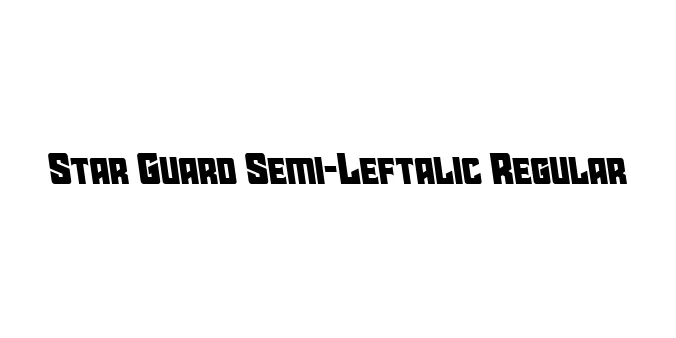
Star Guard Semi-Leftalic Regular
Designed by Dan Zadorozny
Star Guard Semi-Leftalic Regular is a distinctive member of the expansive Star Guard family, created by the prolific typeface designer Dan Zadorozny of Iconian Fonts. This font is characterized by its sharp, angular forms and a unique reverse slant that gives it an aggressive, kinetic energy. It belongs to the techno-futurist genre, drawing inspiration from retro-scientific aesthetics and industrial mechanical precision to create a look that is both modern and nostalgic for the space-age era.
The Semi-Leftalic variation provides a subtle departure from standard italics, offering a dynamic visual tension that is rarely seen in mainstream typography. Its wide-stance characters and stencil-like cutouts make it highly legible in large formats, making it a staple for graphic designers working within the gaming, aerospace, and comic book industries who require a sense of speed and high-tech sophistication.
Star Guard Semi-Leftalic Regular Best Uses
Ideal for HUD elements, sci-fi terminals, and futuristic user interface designs.
Perfect for high-tech brand identities, esports organizations, and modern sports franchises.
Well-suited for science fiction, action-heavy cinematic titles, or documentary headers.
Excellent for streetwear graphics, bold typography-driven shirts, and athletic team jerseys.